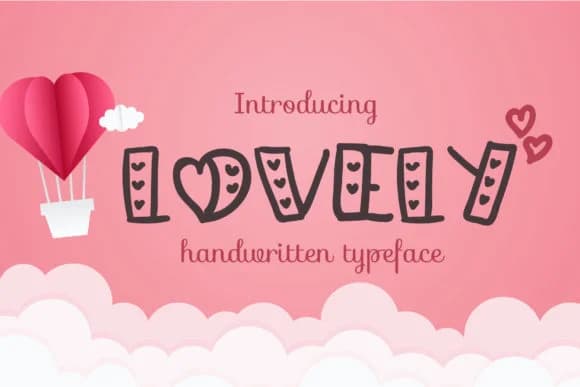
Lovely Font by Patricia (DMStd) is a handwritten script with a playful, romantic character that brings genuine warmth to any project. The bouncy letterforms and gentle curves make it feel personal and approachable, ideal for designs that need a touch of human creativity rather than corporate polish.
This typeface shines when you're working on wedding invitation suites where you want something distinctly less formal than traditional calligraphy, yet still elegant. Valentine's Day cards and anniversary announcements both gain character with these letterforms. Engagement party invites, too, feel more heartfelt when set in a script that looks like it was drawn by hand. Beyond celebrations, the font works well for custom scrapbooking layouts, handmade gift tags, and hand-lettered thank-you cards that actually stand out when they arrive in the mailbox. It's also a smart choice for small businesses creating love-themed product stickers or packaging labels.
A nice bonus: the font includes decorative love-themed doodles that you can access by typing the number keys (0-9). These small flourishes give you ready-made elements to pair with the letterforms, letting you build layered compositions without hunting for separate graphics. If you're ready to add some personality to your designs, you can grab this one on Creative Fabrica.
Lovely Font by Patricia (DMStd) Font is a script font that shines as a display or heading face. Pair it with a clean sans-serif or serif font for body text β the contrast creates a clear hierarchy while the two styles stay balanced and easy to read.